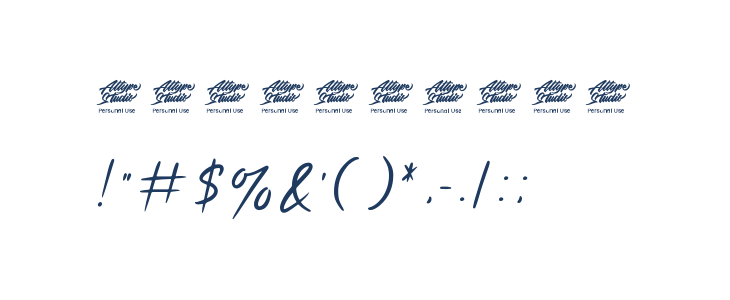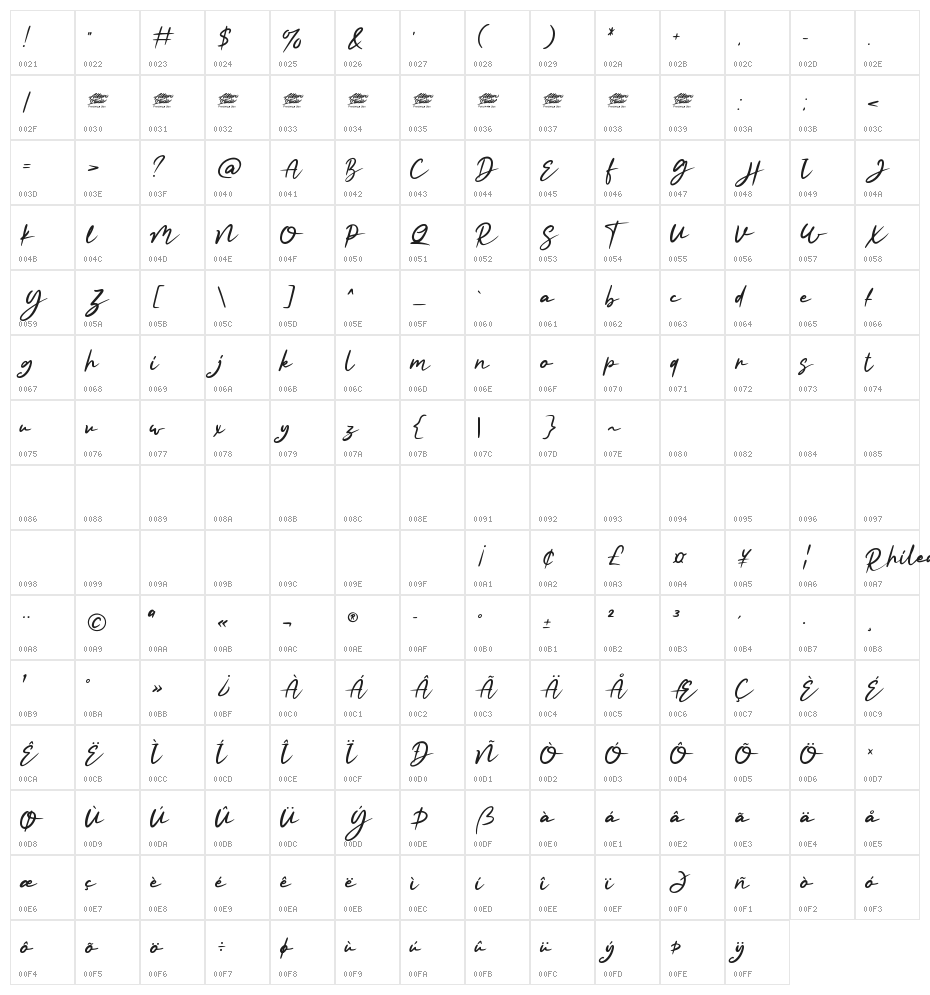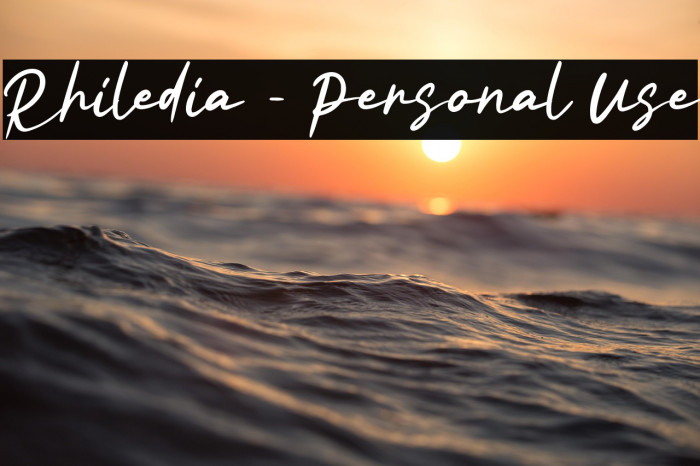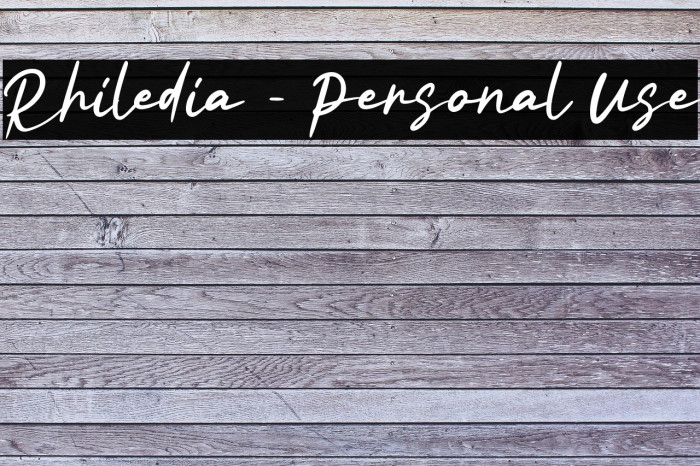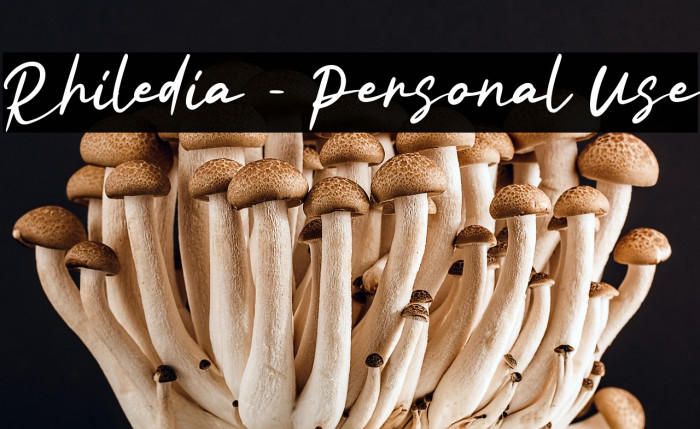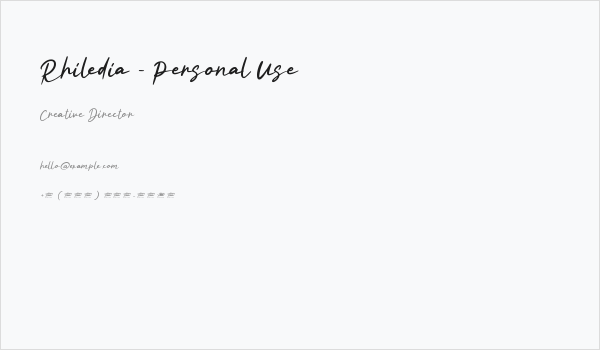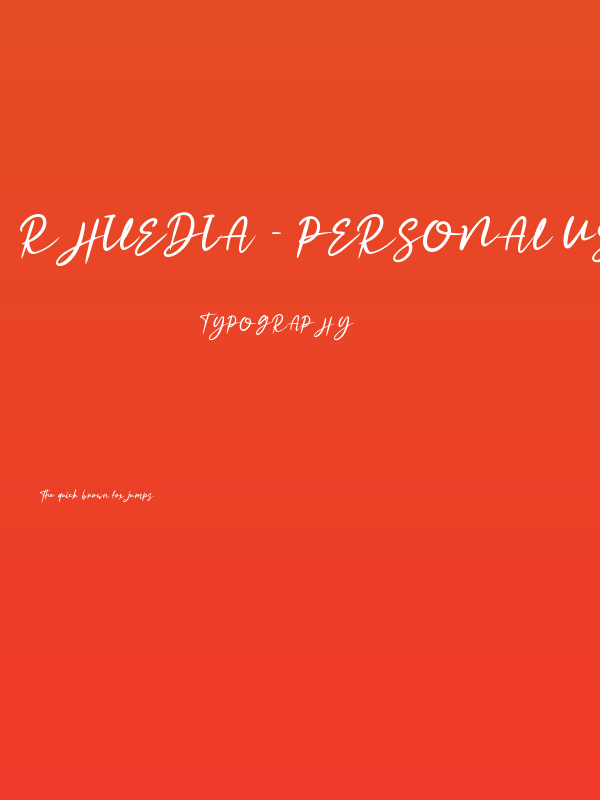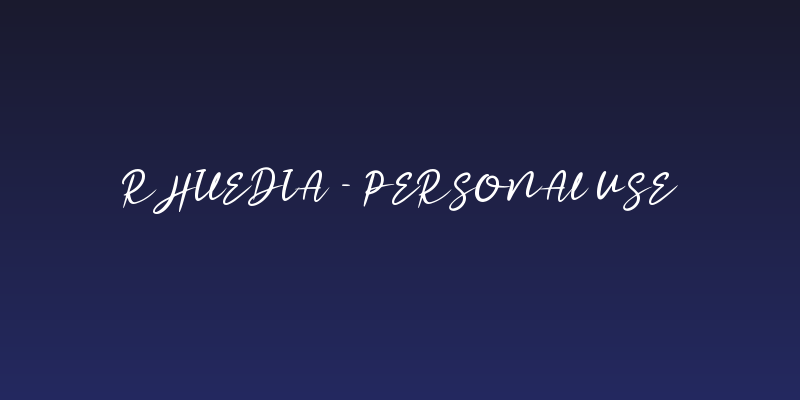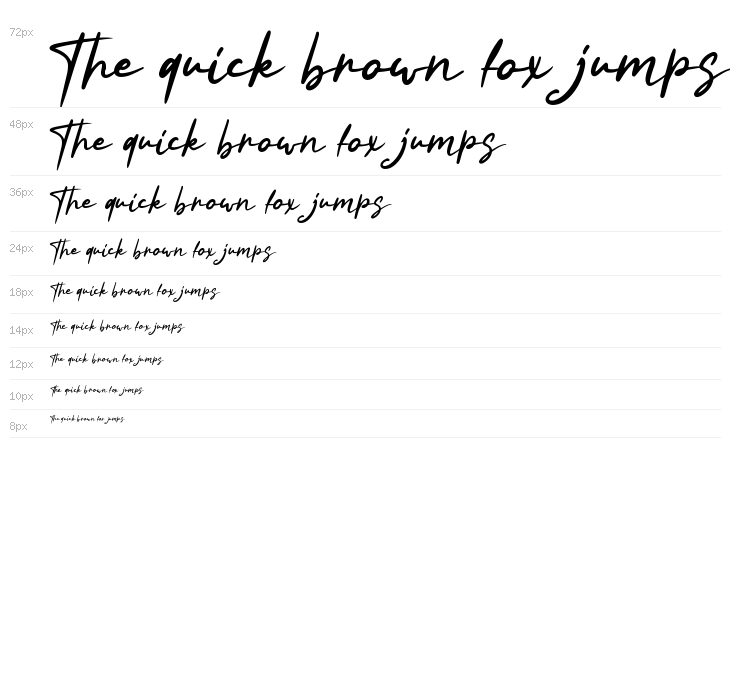
Rhiledia - Personal Use Font
Rhiledia - Personal Use Description
This font features a flowing, cursive style with a modern twist. The letters are connected in a smooth, elegant manner, giving it a handwritten appearance. The uppercase letters are bold and dynamic, while the lowercase letters maintain a consistent flow, enhancing readability. The font includes a full set of uppercase and lowercase letters, numbers, and a variety of special characters. Its playful yet sophisticated style makes it suitable for creative projects that require a personal touch. The strokes are moderately thick, providing a balanced contrast that ensures clarity without sacrificing its artistic flair.